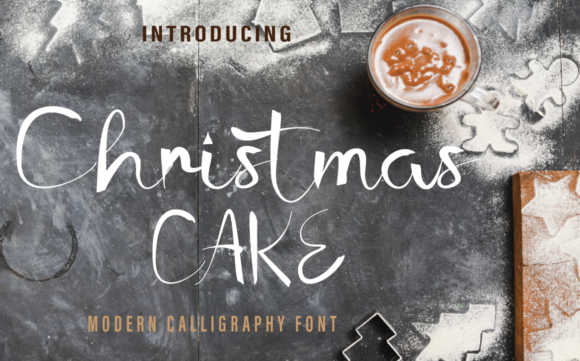
Prepare to be enchanted by Christmas Cake, a script font that embodies romance and charm. Crafted by the talented designers at Farz Studio, Christmas Cake is more than just a font; it's an artistic expression that will transform your creative projects into masterpieces.
With its delicate curves and playful strokes, Christmas Cake is the perfect choice for adding a touch of elegance to your writing. Imagine your words dancing across the page, each letter a work of art. Whether you're writing love letters, designing wedding invitations, or creating social media quotes, Christmas Cake will elevate your words and make them shine.
Step into a world of endless possibilities with Christmas Cake. Its versatility knows no bounds, making it the ideal font for a wide range of projects. From Christmas cards to branding materials, Christmas Cake effortlessly adapts to your creative vision, adding a touch of magic to every design.
Let Christmas Cake be your secret weapon for capturing hearts and spreading joy. Its enchanting style will leave a lasting impression on your audience, whether you're designing marketing materials, creating social media posts, or simply expressing yourself through art.
With Christmas Cake, your words will blossom into something truly special. Its romantic charm will add a touch of whimsy to your projects, while its modern twist ensures that your designs stay fresh and relevant.
Immerse yourself in the beauty of Christmas Cake and let your creativity flow. Its user-friendly design makes it easy to incorporate into any project, whether you're a seasoned designer or just starting out.